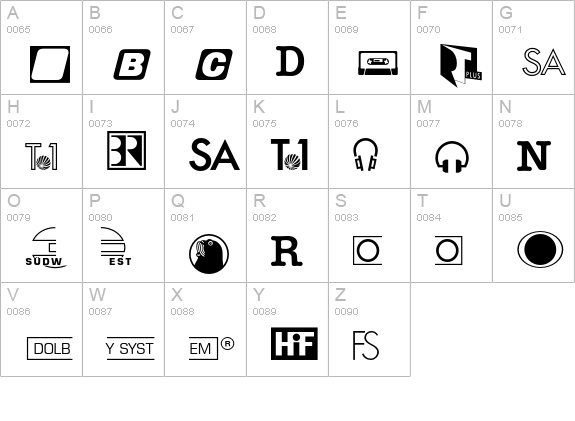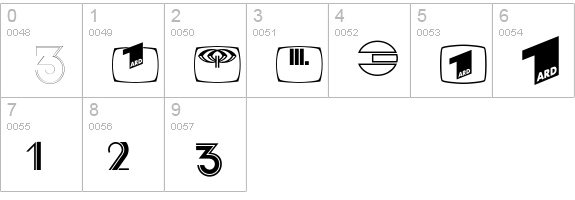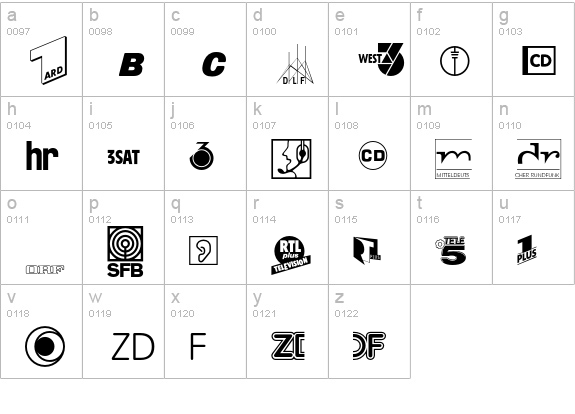
Audio LH Pi font is a unique and modern typeface that is perfect for adding a touch of sophistication to your designs. This font features sleek lines and a sleek, futuristic style that is sure to make your projects stand out. With its clean and elegant appearance, Audio LH Pi font is ideal for use in a variety of design projects, from logos to websites to printed materials. The best part? Audio LH Pi font is completely free to download at FontsMarket.com. That's right, you can add this stunning font to your collection at no cost, allowing you to elevate your designs without breaking the bank. Whether you're a professional designer or just looking to spruce up your personal projects, Audio LH Pi font is a versatile and stylish choice that won't disappoint. Download it today and see the difference it can make in your designs!